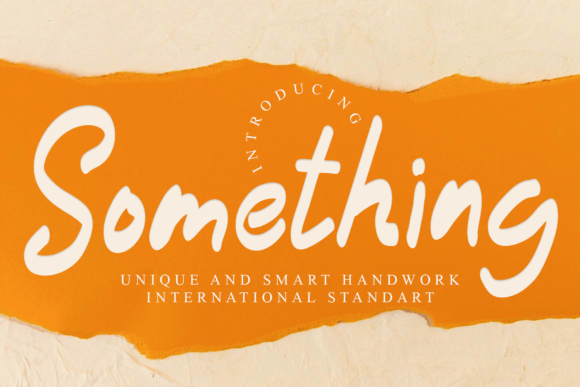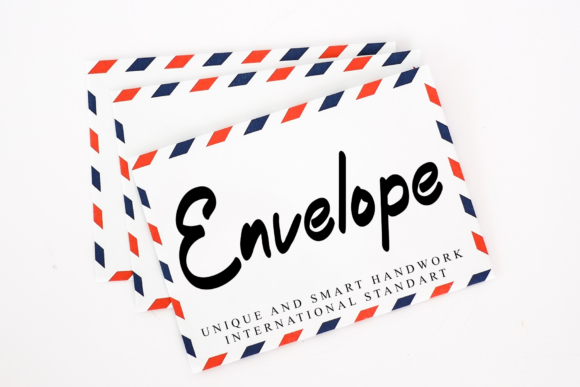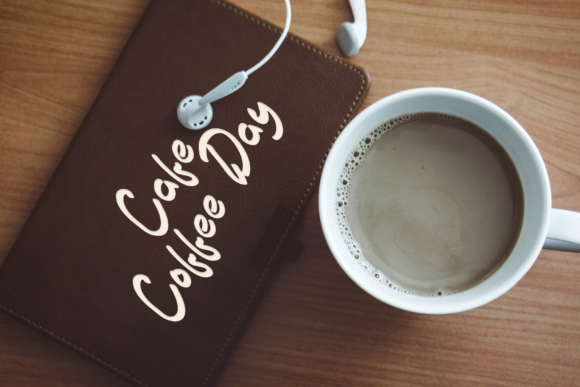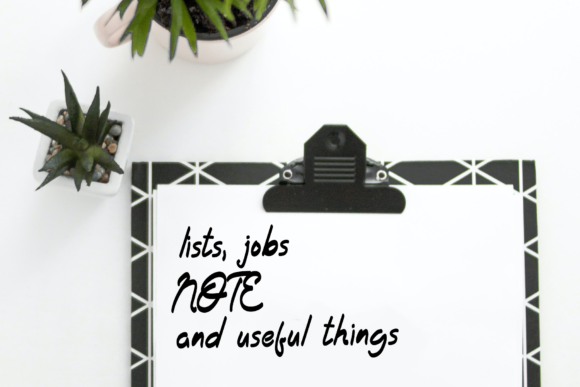
Something Font
About Something Font
Something is a cute and quirky handwritten font. Fall in love with its incredibly distinct and timeless style and use it to create spectacular designs!